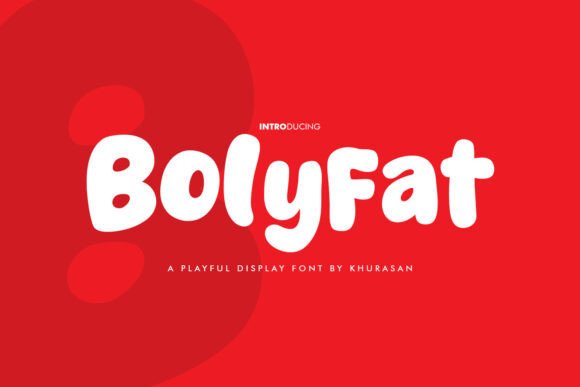
Bolyfat Font: The Ultimate Modern and Cute Display Font for Your Creative Projects
In the world of graphic design, fonts play a crucial role in conveying the message and aesthetic of a project. With the numerous font options available, it can be challenging to find the perfect one that suits your creative vision. However, if you’re looking for a modern and cute display font that can elevate your designs, look no further than Bolyfat Font. In this article, we’ll explore the features and benefits of Bolyfat Font, and how it can be used to create stunning designs for various projects.
What is Bolyfat Font?
Bolyfat Font is a modern and cute display font designed to add a touch of personality to your creative projects. Its unique and playful style makes it perfect for a wide range of applications, including posters, logos, magazines, book covers, banners, and more. With its clean and elegant lines, Bolyfat Font is sure to make your designs stand out from the crowd.
Key Features of Bolyfat Font
- Modern and Cute Design: Bolyfat Font boasts a modern and cute design that is sure to capture the attention of your audience.
- Versatile: This font is perfect for a wide range of projects, including posters, logos, magazines, book covers, banners, and more.
- Elegant Lines: Bolyfat Font features clean and elegant lines that give it a sophisticated look.
- Easy to Read: Despite its unique design, Bolyfat Font is easy to read, making it perfect for body text and headlines.
Benefits of Using Bolyfat Font
Using Bolyfat Font in your creative projects comes with numerous benefits. Here are a few:
- Unique Designs: Bolyfat Font allows you to create unique and eye-catching designs that will set you apart from the competition.
- Time-Saving: With Bolyfat Font, you can create professional-looking designs in no time, saving you time and effort.
- Customizable: Bolyfat Font is highly customizable, allowing you to adjust its size, color, and style to suit your design needs.
Project Ideas Using Bolyfat Font
Bolyfat Font is versatile and can be used for a wide range of projects. Here are a few ideas to get you started:
- Posters: Create eye-catching posters for events, promotions, or advertisements.
- Logos: Design unique and memorable logos for businesses, products, or services.
- Magazines: Use Bolyfat Font as a headline or body font for magazines, newspapers, or newsletters.
- Book Covers: Create stunning book covers that will grab the attention of readers.
- Banners: Design attention-grabbing banners for websites, social media, or events.
In conclusion, Bolyfat Font is a modern and cute display font that is perfect for a wide range of creative projects. Its unique design, versatility, and ease of use make it an excellent choice for designers, artists, and crafty people. With Bolyfat Font, you can create stunning designs that will capture the attention of your audience and leave a lasting impression.